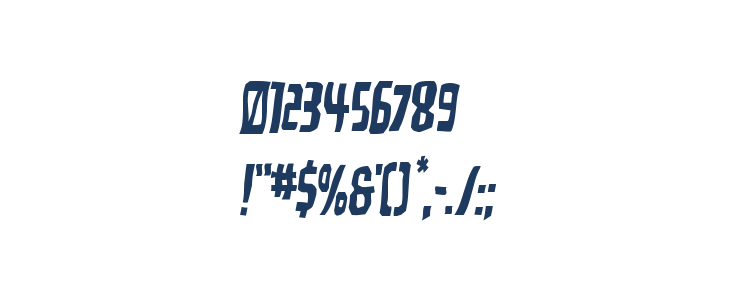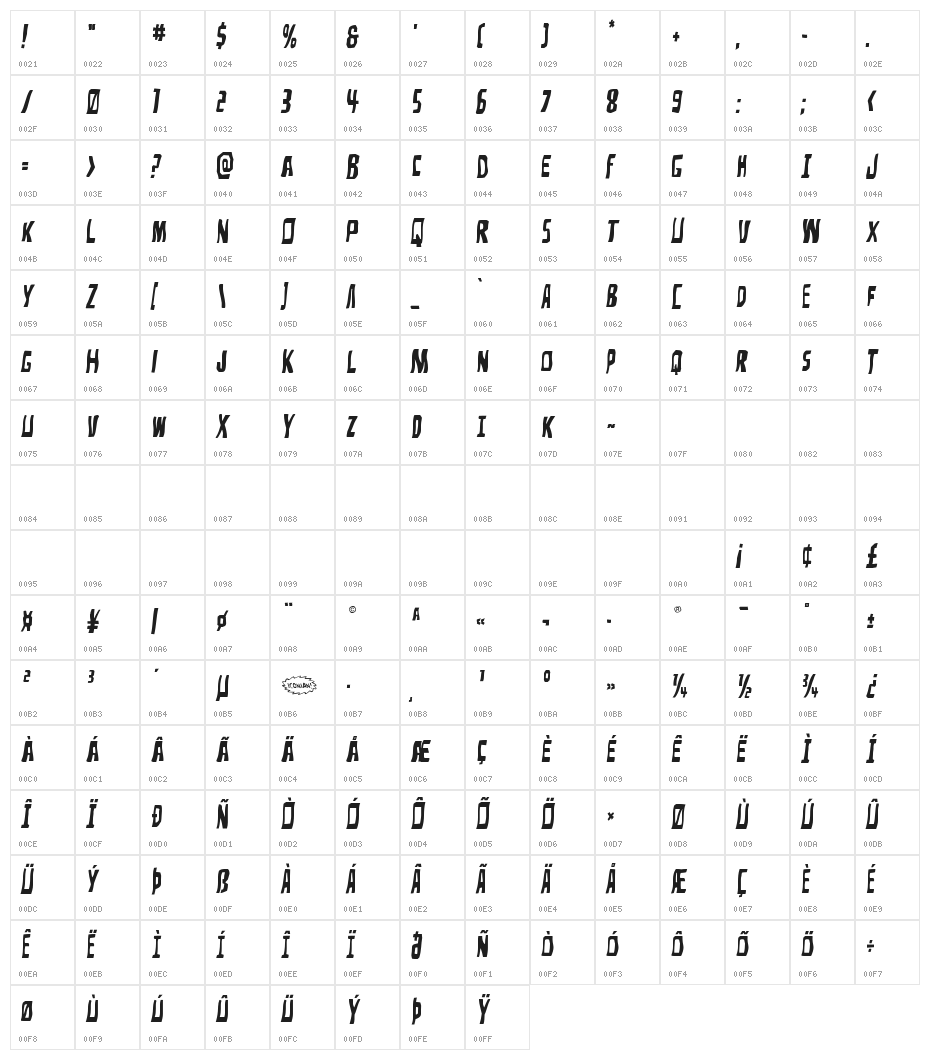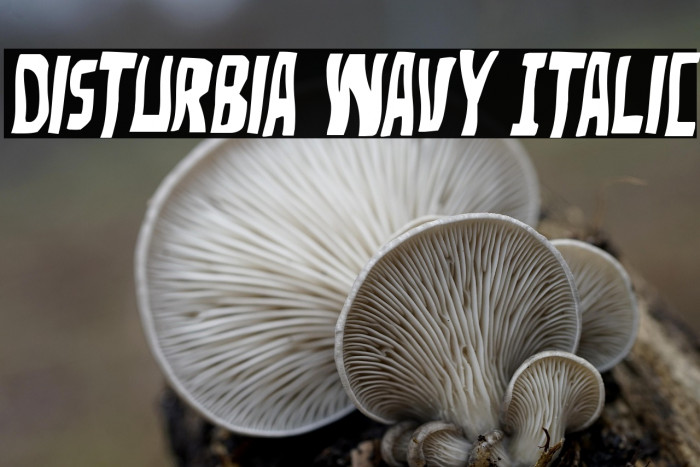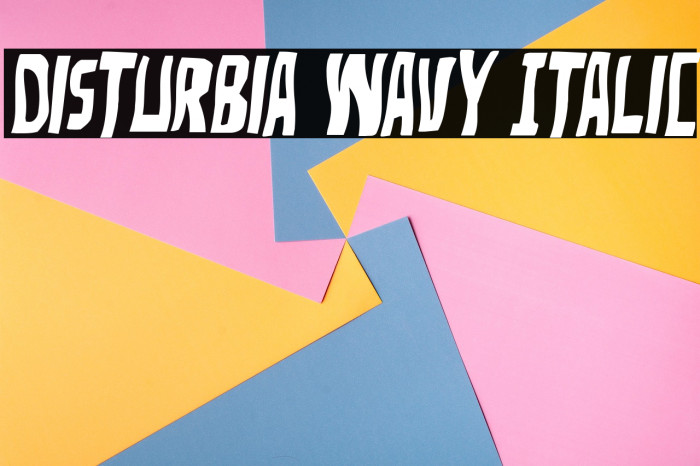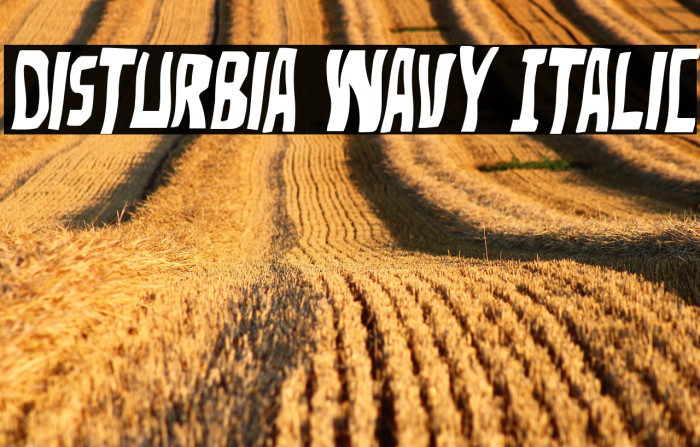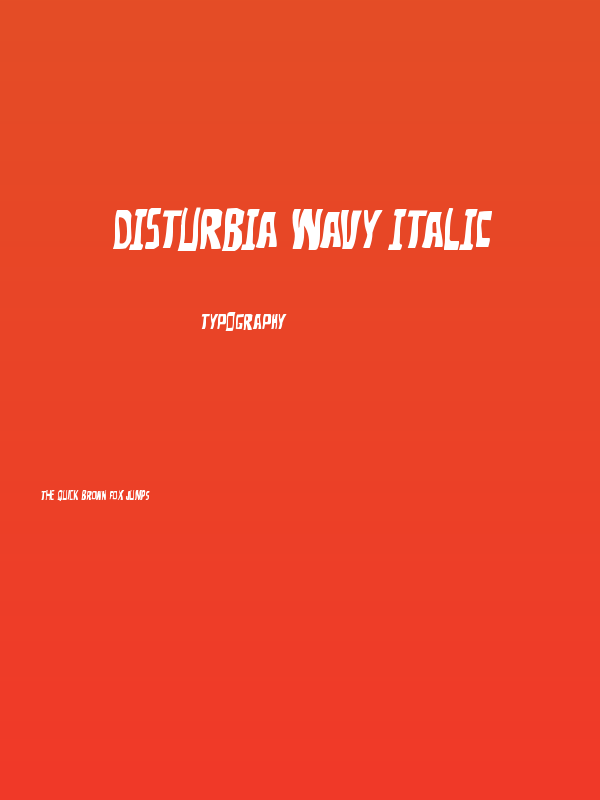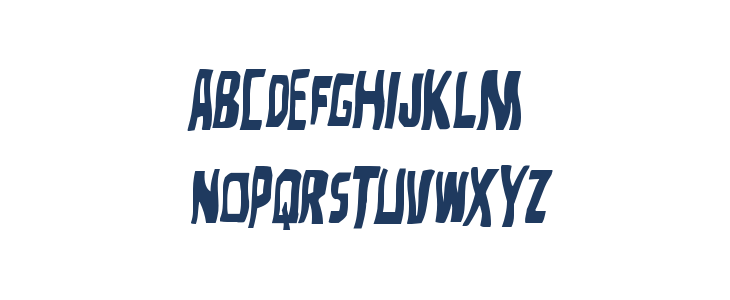
Disturbia Wavy Italic Font
Disturbia Wavy Italic Description
This font features a unique wavy and italicized style that gives it a dynamic and energetic appearance. The letters have a playful distortion, creating a sense of movement and fluidity. The uppercase and lowercase characters maintain a consistent design, with exaggerated curves and angles that add to the overall whimsical feel. The numbers and special characters follow the same design principles, ensuring a cohesive look across all glyphs. This font is ideal for projects that aim to capture attention and convey a sense of fun and creativity.
| Proposed Projects | Ideal for posters, music album covers, creative branding, and event invitations. |